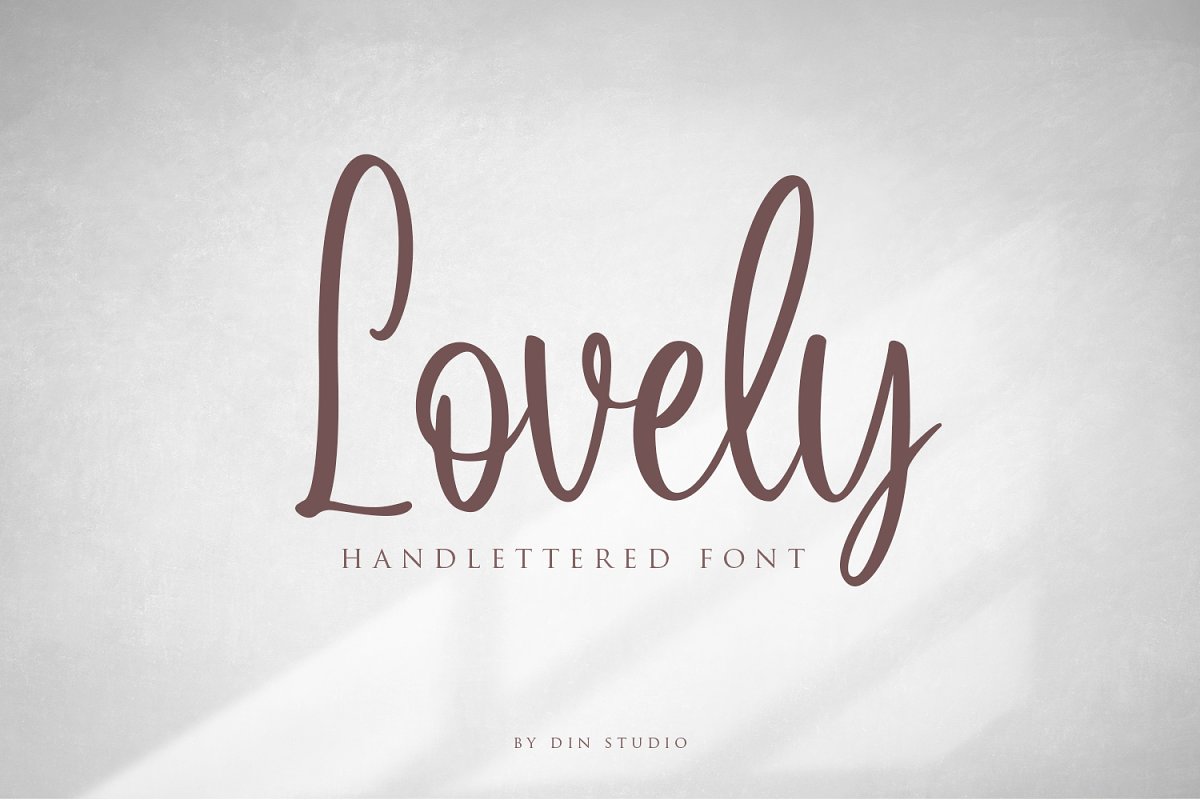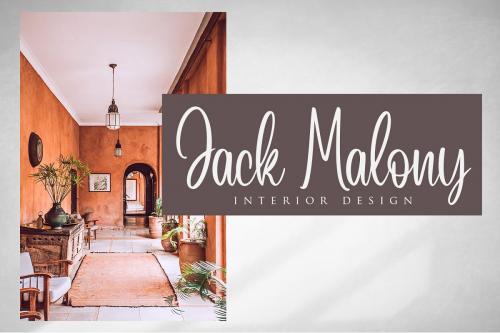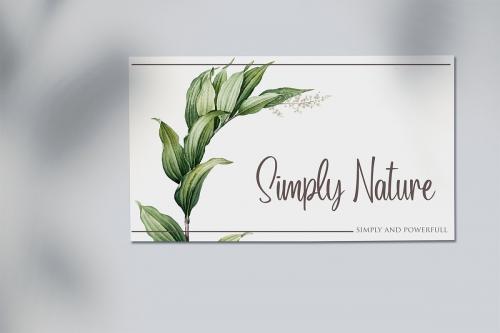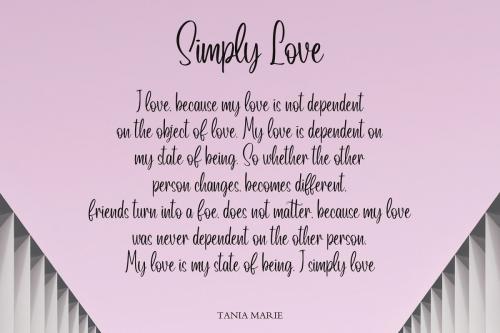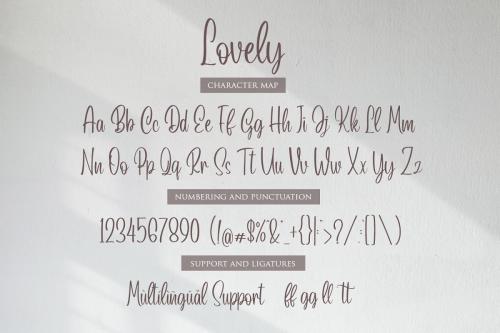
Lovely Script Font is a new modern handlettered font by Din Studio. Made with naturally handwritten and modern style, it brings beautiful and modern typeface. This font suitable for your design project especially for branding and lettering.
This font is suitable to use as a logo & branding, photography, watermark, social media posts, advertisements, invitation, product designs, label, stationery, wedding designs, product packaging or anything that need handwriting taste.